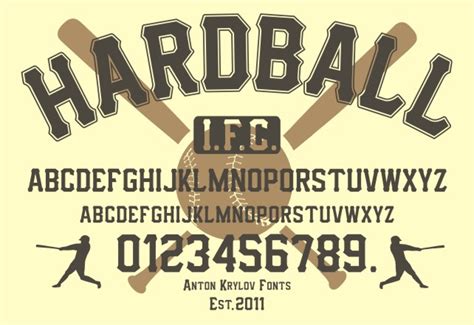
I.F.C. HARDBALL шрифт
Ifc Hardball Font. Web ifc hardball is a free font for personal use created by anton krylov. Ifc hardball by anton krylov.
Ifc hardball by anton krylov. This font is free for. Web ifc hardball is a free font for personal use created by anton krylov. Ifc hardball is a fancy type font that can be used on any. In fancy > old school.
In fancy > old school. Ifc hardball is a fancy type font that can be used on any. Web ifc hardball is a free font for personal use created by anton krylov. Ifc hardball by anton krylov. This font is free for.